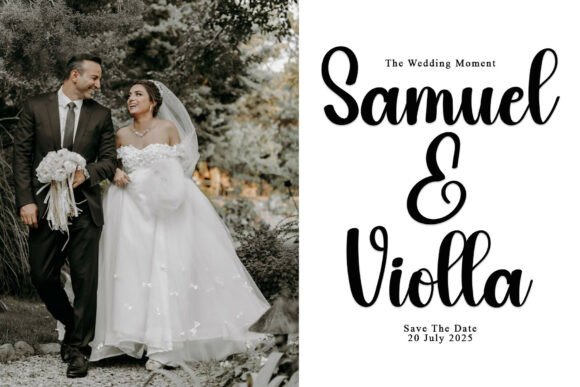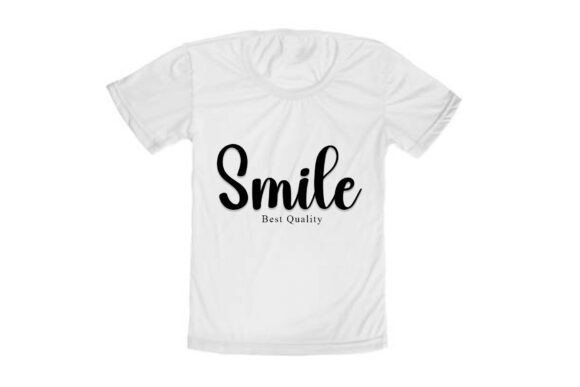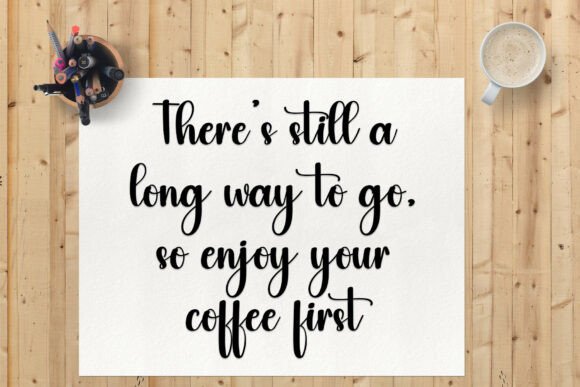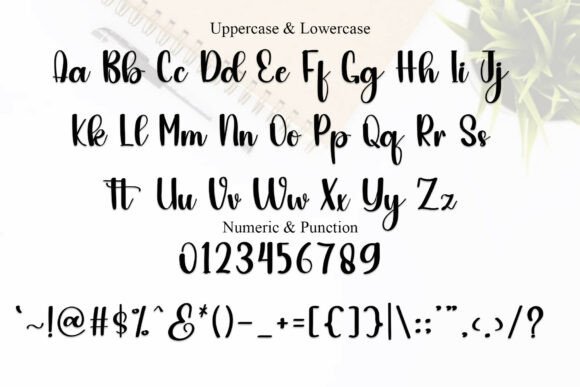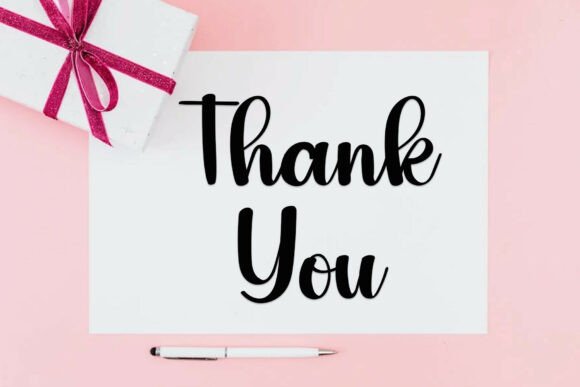
Introducing Happy Birthday Font: The Ultimate Festive Typeface for Your Holiday Designs
The holiday season is upon us, and what better way to get into the spirit than with a font that’s as merry and bright as the occasion itself? Look no further than the Happy Birthday Font, a festive and whimsical typeface designed to add a touch of enchantment to your holiday designs. Whether you’re a designer, crafter, or simply someone who loves to get creative, this font is sure to bring a cheerful and nostalgic ambiance to your words.
A Festive Font for Every Occasion
Happy Birthday Font is the perfect addition to any holiday-themed project. From greeting cards and gift tags to decorations and party invitations, this font is sure to make your designs shine. Its decorative elements and whimsical flair evoke the magic of the holiday season, making it an ideal choice for anyone looking to add a little extra sparkle to their creations.
What Makes Happy Birthday Font So Special?
So, what sets Happy Birthday Font apart from other typefaces? For starters, its unique and festive design is sure to grab attention and spread holiday cheer. But that’s not all – this font is also PUA (Private Use Area) coded, which means you can access all the amazing glyphs and ligatures easily. This makes it simple to add special touches to your designs, from snowflakes and holly leaves to Christmas trees and presents.
Happy Birthday Font is a dream come true for designers and crafters alike. Whether you’re creating digital designs or working on handmade projects, this font is easy to use and versatile. With its wide range of applications, you can use it to create everything from professional-looking designs to personal, handmade projects.
Key Features of Happy Birthday Font
- Festive and whimsical design: Perfect for holiday-themed projects, this font adds a touch of enchantment to your designs.
- PUA coded: Easily access all the amazing glyphs and ligatures to add special touches to your designs.
- Decorative elements: Includes a range of decorative elements, such as snowflakes, holly leaves, and Christmas trees.
- Wide range of applications: Use it to create greeting cards, gift tags, decorations, party invitations, and more.